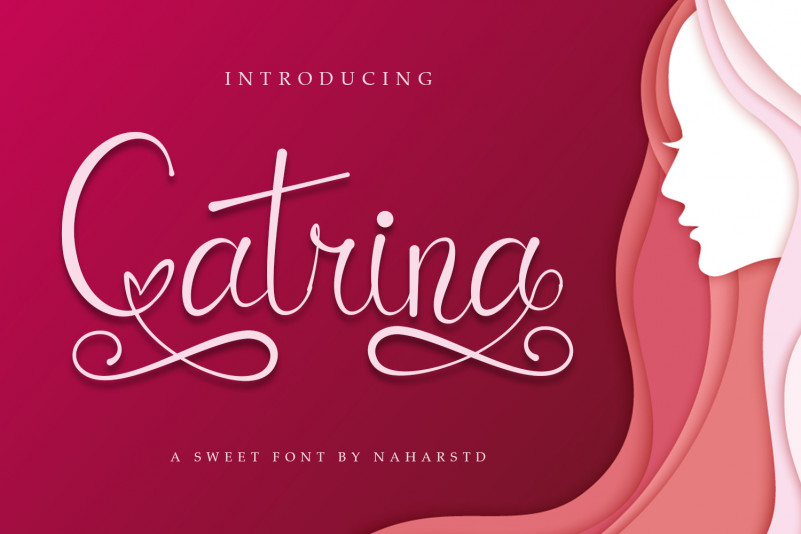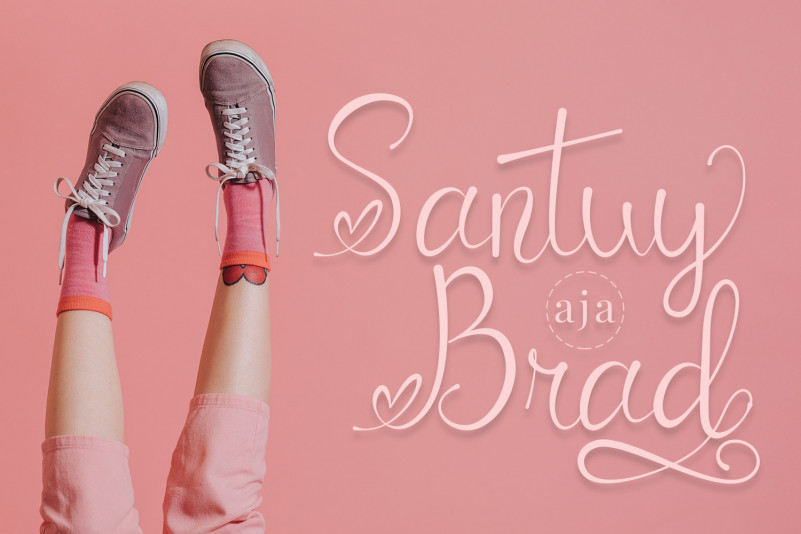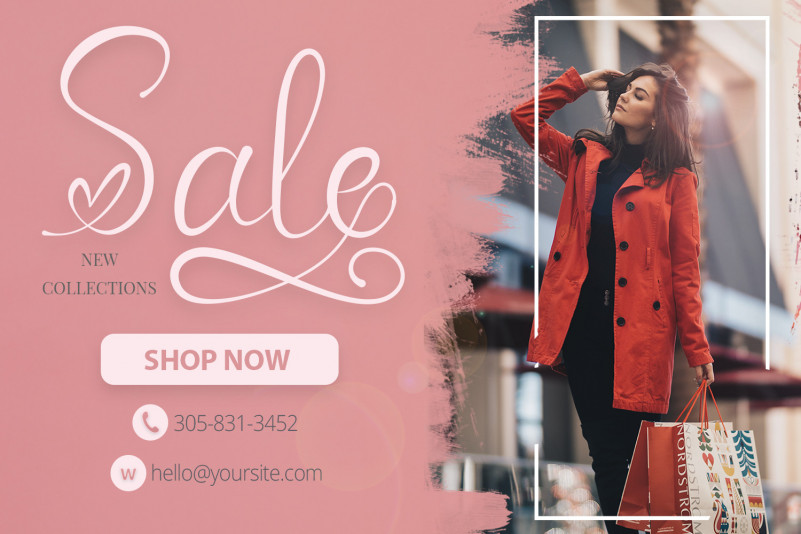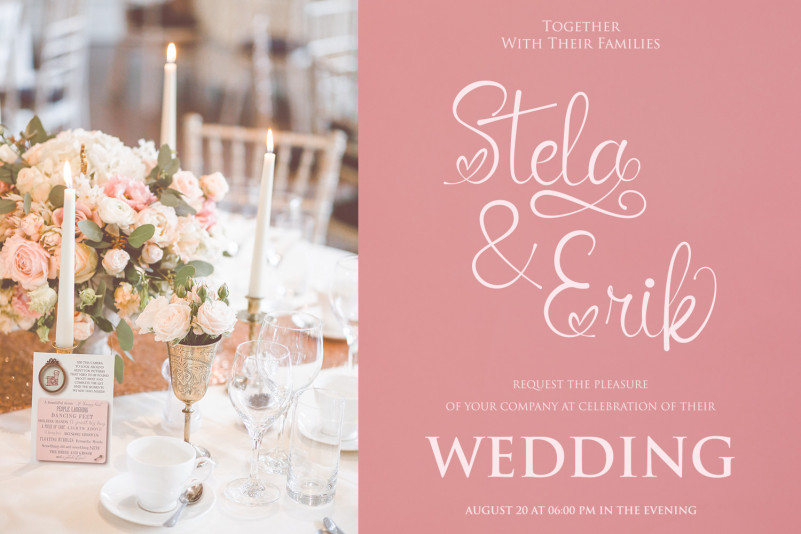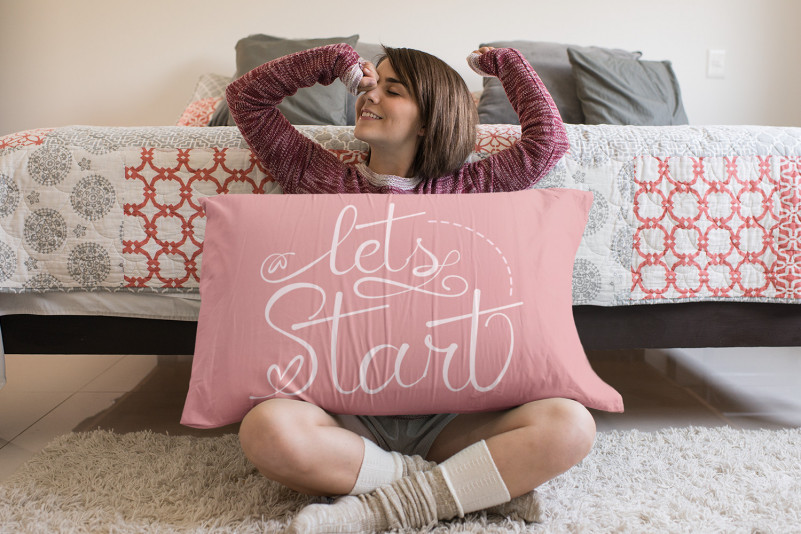
Catrina Script Font
Catrina Script Font is a sweet script font, will be suitable for any projects such as logo’s, branding projects, homeware designs, product packaging, mugs, quotes, posters, shopping bags, t-shirts, book covers, name card, invitation cards, greeting cards, label, photography, watermark, special events, and all your other lovely projects that need beautiful handwriting taste.